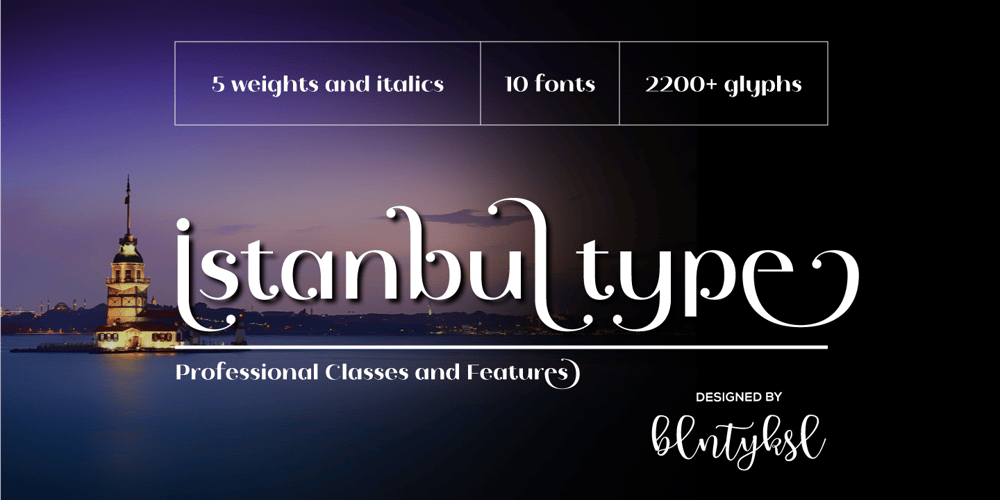
Istanbul Type Font Family was designed by Bülent Yüksel and published by Bülent Yüksel. Istanbul Type contains 10 styles and family package options. “Istanbul Type” has a modern streak which is the result of a harmonization of width and height especially in the lowercase letters to support legibility. “Istanbul City” has the modernity of the west and the orientalist texture of the east as the city that unites the Asian and European continents. “Istanbul Type” also includes these features. It is a unique character that reflects the spirit of “Istanbul City”. Many letter alternatives prepared with care have been created for all letters. You can make dozens of combinations from a word using these alternative letters.”Istanbul Type” is an effective set for creating identities for branding, posters, book covers, headlines, logotypes, restaurants, menu cards, wedding invitations and so on. “Istanbul Type” provides advanced typographical support for Latin-based languages. An extended character set, supporting Central, Western and Eastern European languages, rounds up the family.The designation “Istanbul Type 500 Regular” forms the central point. The first figure of the number describes the stroke thickness: 100 Thin to 900 Bold. “Istanbul Type” 5 weights and italics total 10 types. The family contains a set of 2.200+ characters.Case-Sensitive Forms, Classes and Features, Fractions, Superior, Inferior, Denominator, Numerator, Old Style Figures just one touch easy In all graphic programs.Attention! “Typography Line” is not suitable for use. When using it for special effects, it may be necessary to “Convert / Create Outlines” it first and then “Pathfinder Unite” it.You might have a crush on this typeface :)Do not hesitate to consult me for information about fonts before, during and after purchasing. You can contact me at “buyuksel@hotmail.com”.Enjoy using it.